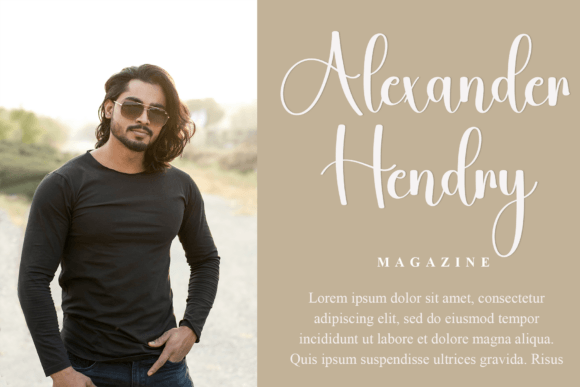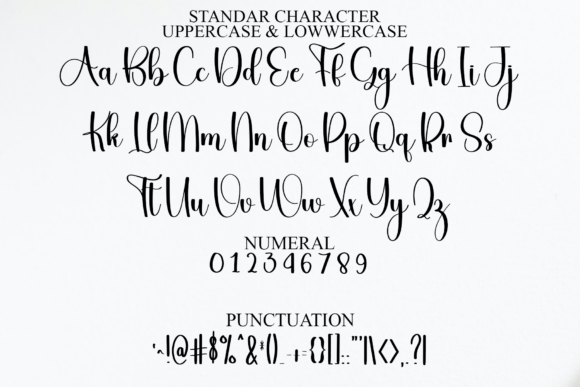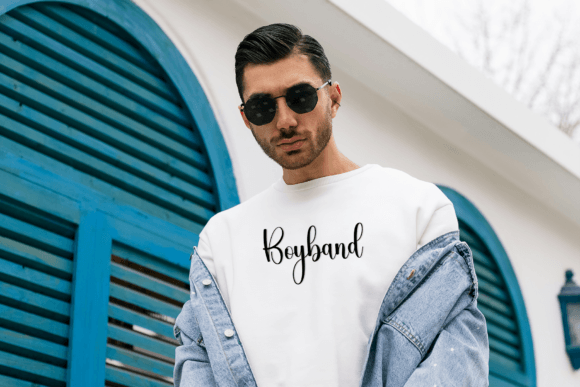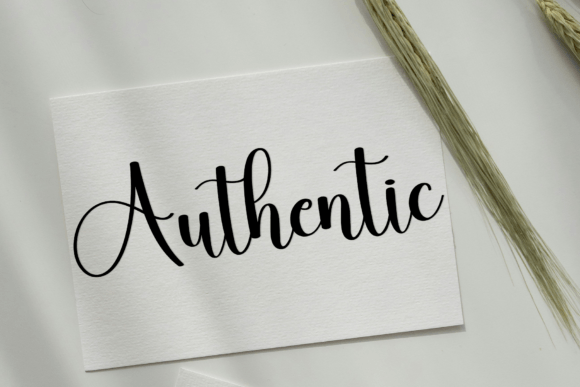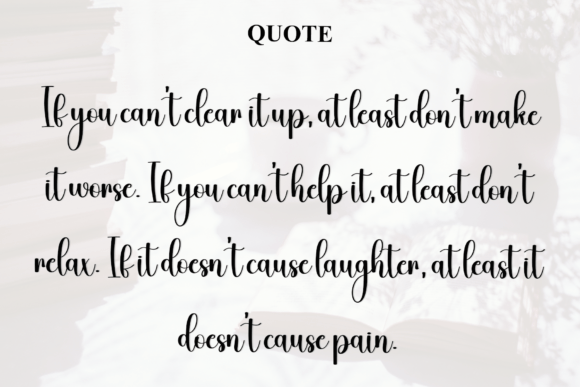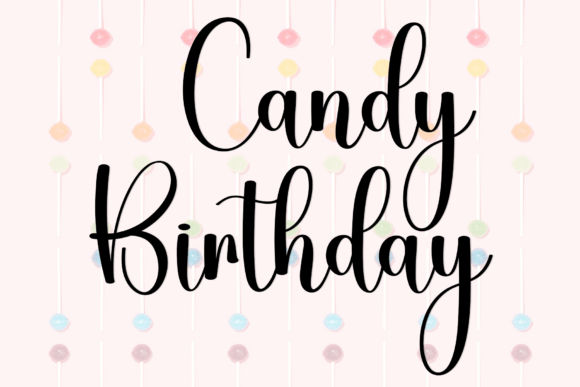
Introducing Beloved Candy Font: The Sweetest Addition to Your Holiday Designs
The holiday season is upon us, and with it comes the joy of creating festive and merry designs that capture the spirit of the season. If you’re a designer or crafter looking for the perfect typography to add a touch of enchantment to your projects, look no further than the Beloved Candy Font. This delightful typeface is specifically designed to bring a cheerful and nostalgic ambiance to your words, making it perfect for greeting cards, gift tags, and holiday-themed projects.
Beloved Candy Font is a decorative typeface that embodies the magic of the holiday season. Its whimsical flair and decorative elements evoke a sense of wonder and excitement, making it the perfect addition to your holiday designs. Whether you’re creating a festive greeting card, a holiday-themed gift tag, or a merry social media post, this font is sure to bring a smile to your audience’s faces.
Beloved Candy Font is a versatile typeface that is perfect for designers and crafters of all levels. Its ease of use and flexibility make it an ideal choice for a wide range of projects, from professional designs to personal crafting projects. With its PUA encoding, you can access all of the amazing glyphs and ligatures with ease, making it simple to create stunning and unique designs.
Key Features of Beloved Candy Font
- Festive and Merry Design: Beloved Candy Font is specifically designed to capture the spirit of the holiday season, making it perfect for festive and merry designs.
- Decorative Elements: The font features decorative elements and whimsical flair, adding a touch of enchantment to your designs.
- PUA Encoded: The font is PUA encoded, making it easy to access all of the amazing glyphs and ligatures.
- Perfect for Holiday Projects: Beloved Candy Font is perfect for greeting cards, gift tags, and holiday-themed projects.
How to Use Beloved Candy Font in Your Designs
Using Beloved Candy Font in your designs is easy and straightforward. Here are a few tips to get you started:
- Choose the Right Project: Beloved Candy Font is perfect for holiday-themed projects, such as greeting cards, gift tags, and social media posts.
- Experiment with Glyphs and Ligatures: With its PUA encoding, you can access all of the amazing glyphs and ligatures, making it simple to create unique and stunning designs.
- Pair with Other Fonts: Beloved Candy Font pairs well with other festive and merry fonts, making it easy to create a cohesive and visually appealing design.
Tips and Tricks for Getting the Most Out of Beloved Candy Font
Here are a few tips and tricks to help you get the most out of Beloved Candy Font:
- Use it Sparingly: Beloved Candy Font is a decorative typeface, so use it sparingly to add a touch of elegance and sophistication to your designs.
- Experiment with Colors: The font looks great in a variety of colors, so experiment with different hues and shades to find the perfect look for your design.
- Don’t be Afraid to Get Creative: Beloved Candy Font is a versatile typeface, so don’t be afraid to get creative and try new things.
Beloved Candy Font is a festive and merry typeface that is perfect for designers and crafters looking to add a touch of enchantment to their holiday designs. With its decorative elements, whimsical flair, and PUA encoding, it’s easy to create stunning and unique designs that capture the spirit of the season. Whether you’re creating a festive greeting card, a holiday-themed gift tag, or a merry social media post, Beloved Candy Font is the perfect choice. So why wait? Download Beloved Candy Font today and let your typography shine with the magic of this beautiful font!